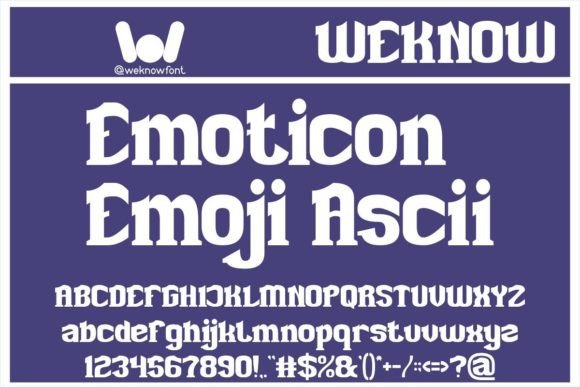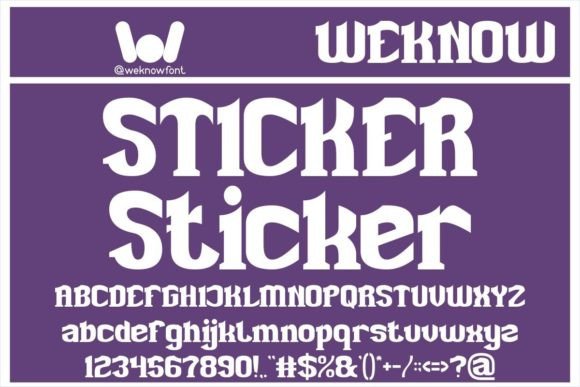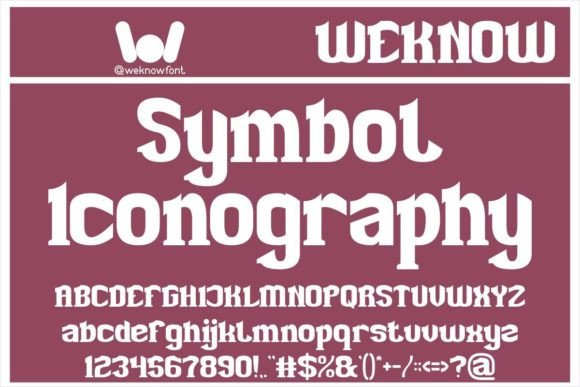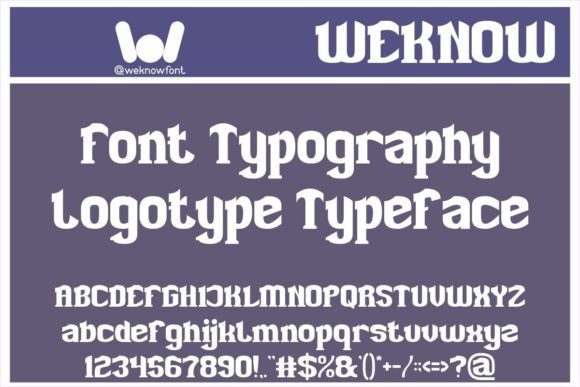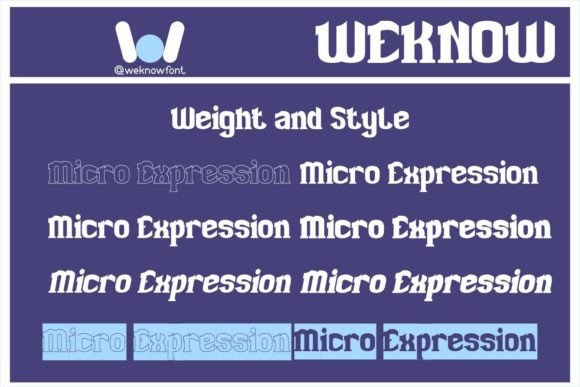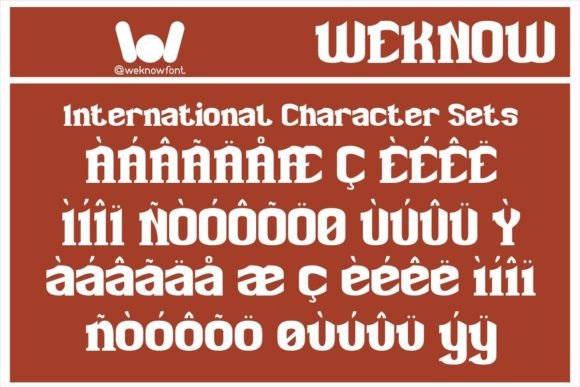
Introduction to Micro Expression Font
Have you ever stared at a blank page, wondering what creative project you can bring to life? The blank canvas can be intimidating, but the right design resource can spark your imagination. As a designer, you know the importance of typography in making your ideas shine. That’s where the Micro Expression Font comes in – a slab serif font that effortlessly balances fun and sophistication.
Composed with a playful yet formal appeal, this display font is perfect for making your logo or logotype come to life. With a transparent background that lets your creativity shine, Micro Expression Font is a high-quality design resource that will elevate your projects. Whether you’re working on a corporate identity, a book, or a YouTube video, this font is sure to add a creative flair to your work.
- High-quality design for creative projects: Micro Expression Font is perfect for designers and artists looking for a unique and expressive font to enhance their work.
- Unique characteristics: Micro Expression Font features a distinctive, hand-drawn style with micro expressions, adding an extra layer of emotion and personality to any design project.
Honest Review: Micro Expression Font
I recently stumbled upon the Micro Expression Font and was excited to give it a try. As a designer, I’m always on the lookout for high-quality design resources that can elevate my creative projects. And let me tell you, this font did not disappoint!
- ✨ High-quality glyphs: The Micro Expression Font boasts incredibly detailed and crisp glyphs, making it perfect for any project where you need a professional-looking font.
- ✨ Transparent background: One of the standout features of this font is its transparent background, which makes it easy to use on any design background.
However, I did encounter a few limitations with the Micro Expression Font:
- ⚠️ Limited font styles: While the font itself is excellent, I found the number of available font styles to be somewhat limited. This might be a concern for designers who need a wide range of font styles for their projects.
Overall, I was thoroughly impressed with the Micro Expression Font. It’s a solid design resource that can add a touch of professionalism to any creative project. While it may have its limitations, I would still highly recommend it to fellow designers looking for a high-quality font.
Micro Expression Font
The Micro Expression Font is a versatile design resource ideal for creative projects. This high-quality font features a transparent background, making it easy to layer and combine with other design elements.
To get the most out of the Micro Expression Font, try experimenting with different font sizes, colors, and layering techniques.
The Micro Expression Font is perfect for:
- Creating eye-catching titles and headings
- Designing unique graphics and illustrations
- Adding a touch of elegance to your presentations and documents